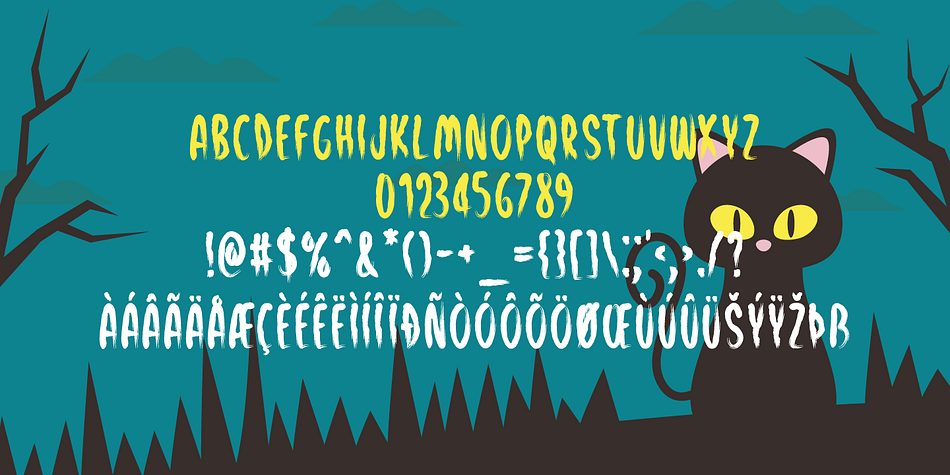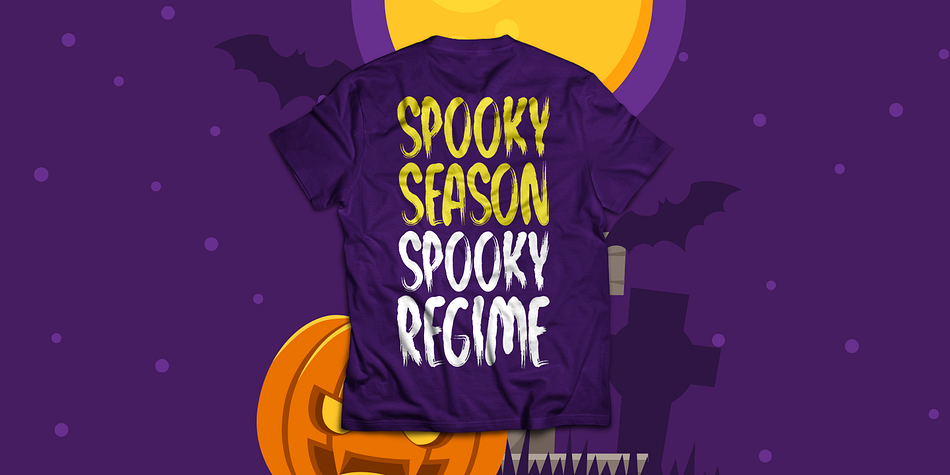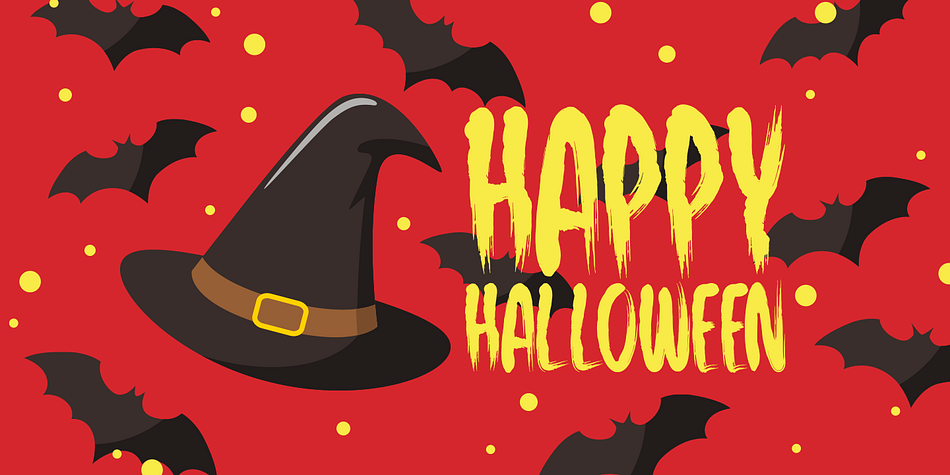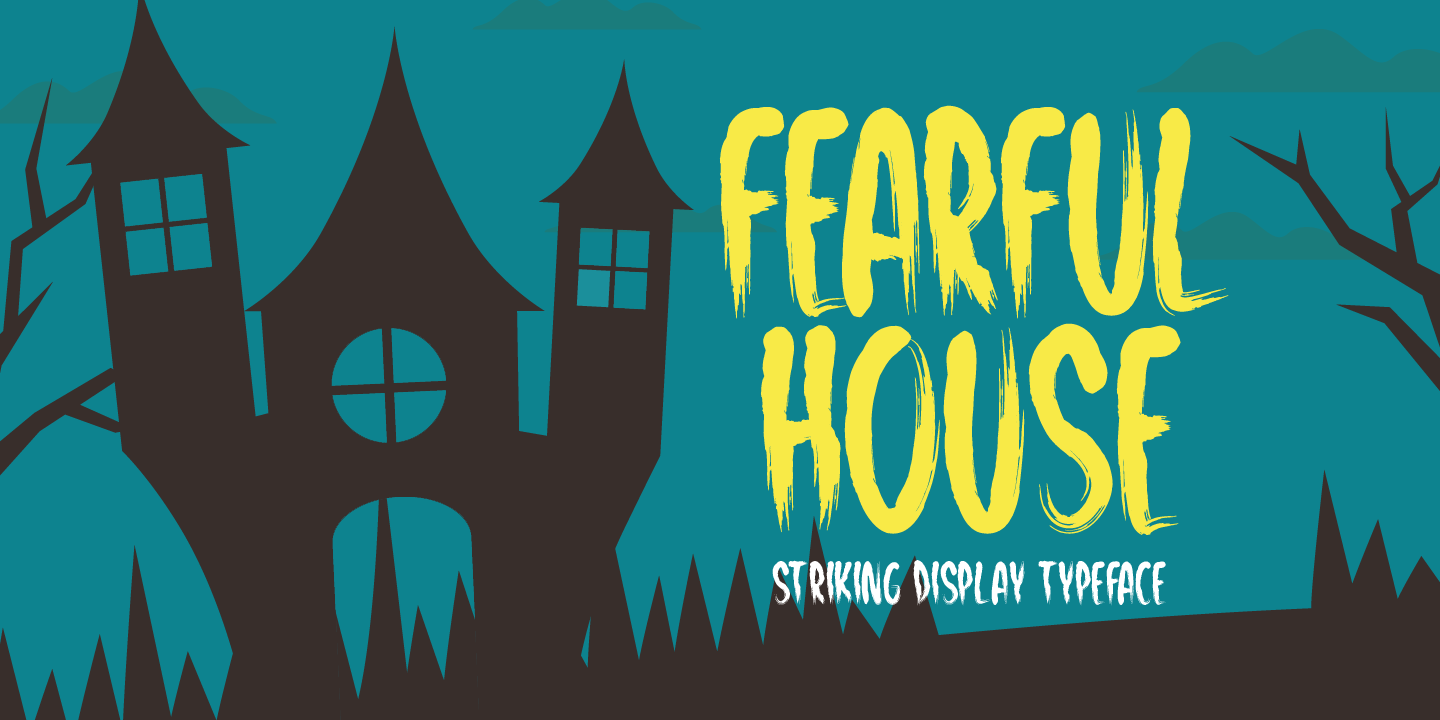
Designed by Md. Shohail Bhuiyan, Fearful House is a display font family published by Seemly Fonts.
Fearful House is a brand new display font. Fearful House is perfectly suited for stationery, logos, t-shirt, paper, print design, website headers, photo frames, flyers, music covers, posters, image sliders, and much more.